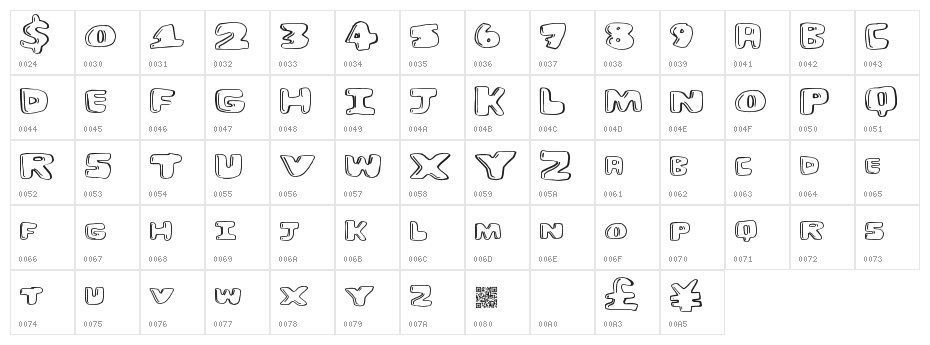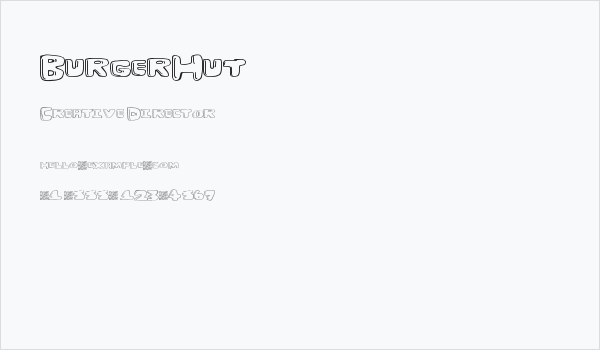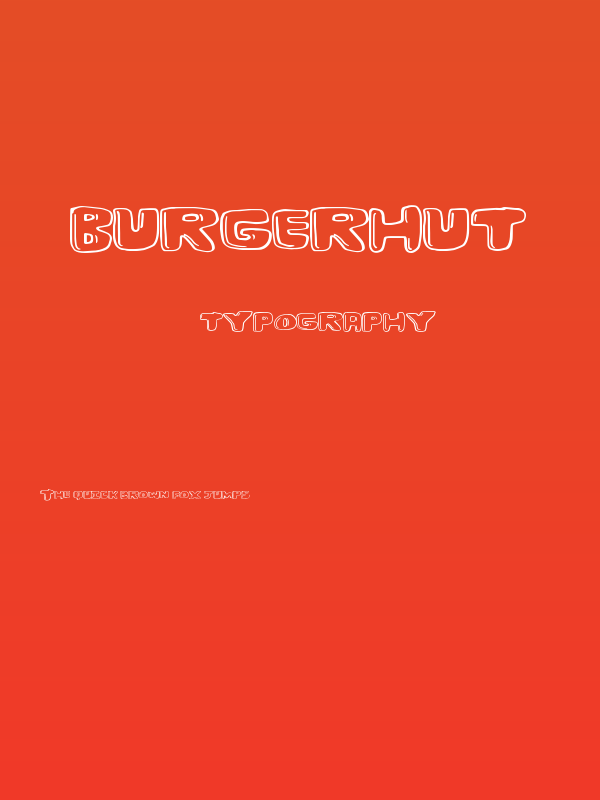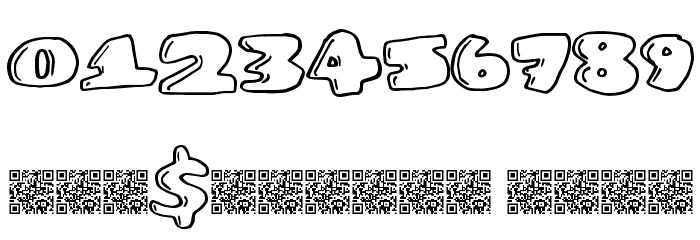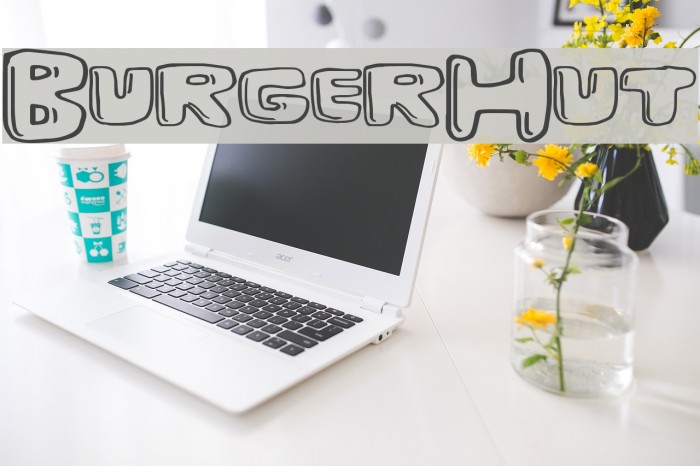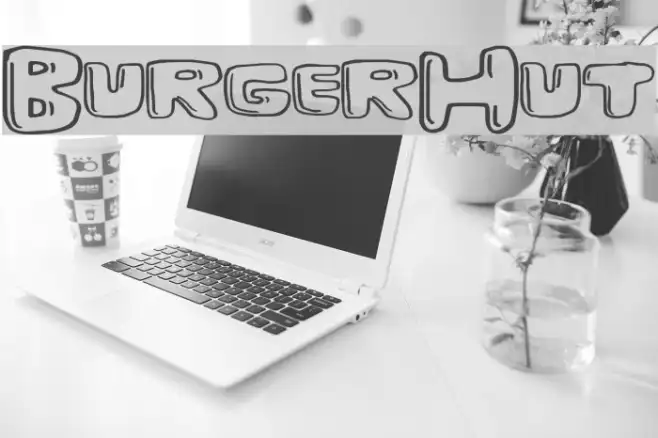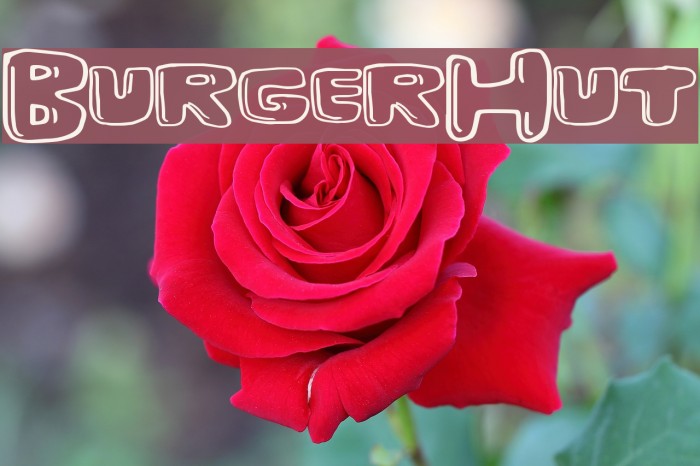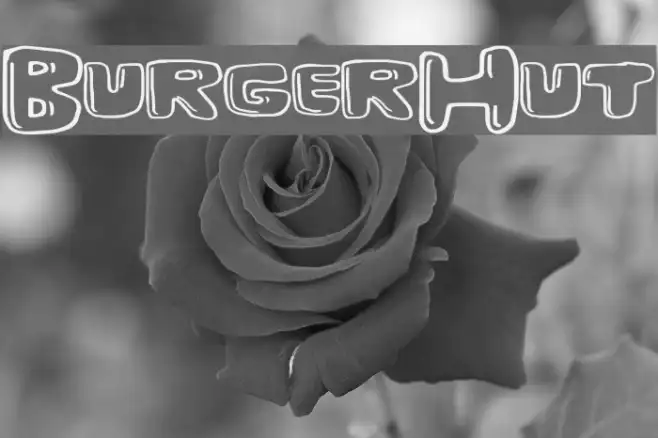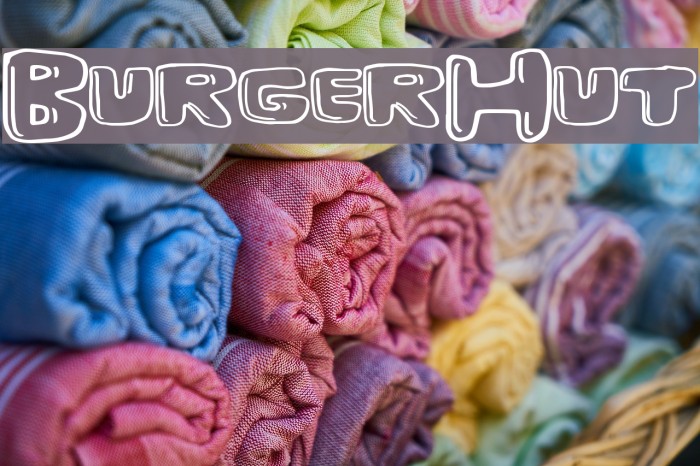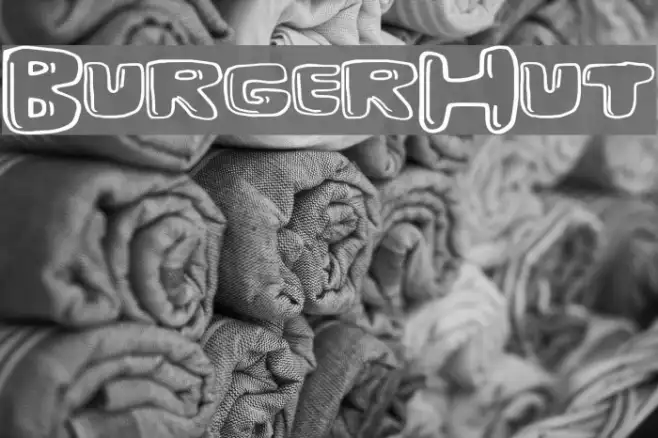
BurgerHut Font
BurgerHut Description
This playful and bold font features a bubble-like, outlined design that gives it a fun and casual appearance. The characters are rounded with a consistent thickness, creating a cohesive and approachable look. Each letter and number is distinct, with a slightly exaggerated form that adds to its whimsical charm. The font is well-suited for creative projects, particularly those aimed at a younger audience or for branding that seeks to convey a sense of fun and lightheartedness. Its unique style makes it stand out, while the clear outlines ensure readability even at smaller sizes.
| Proposed Projects | Ideal for children's books, playful branding, party invitations, and casual posters. |